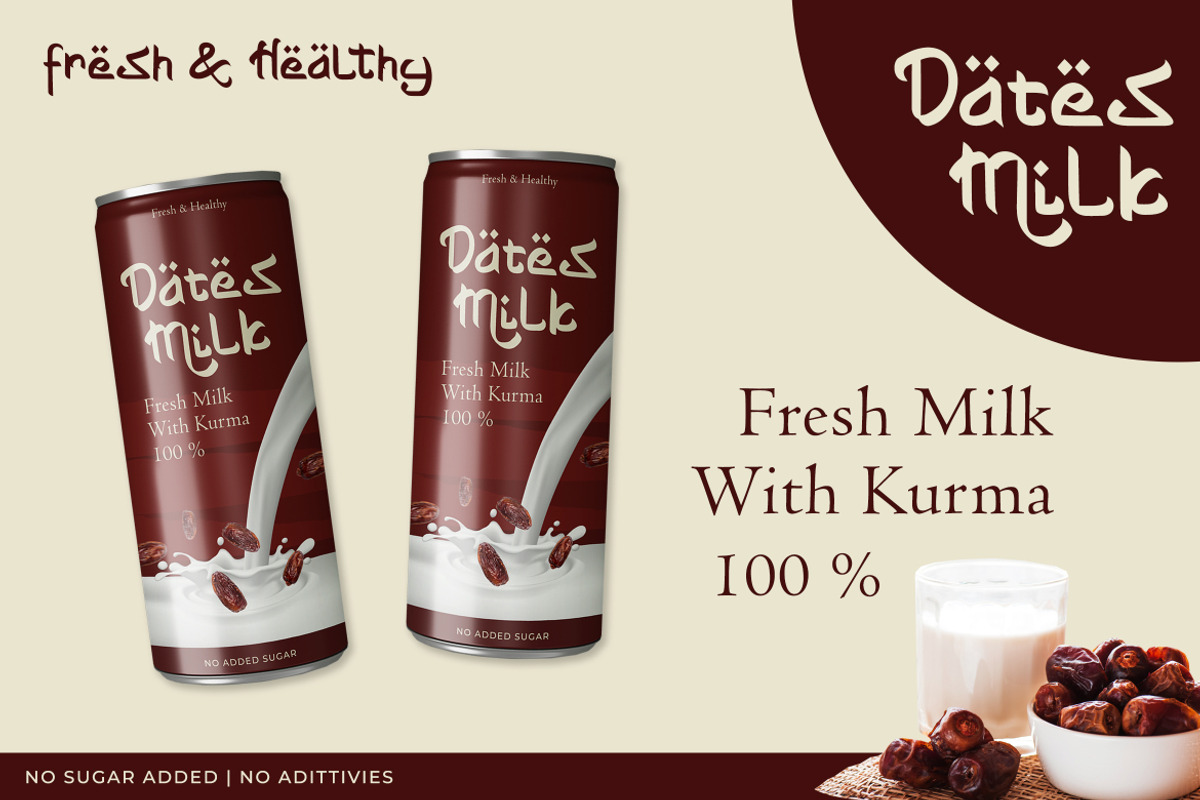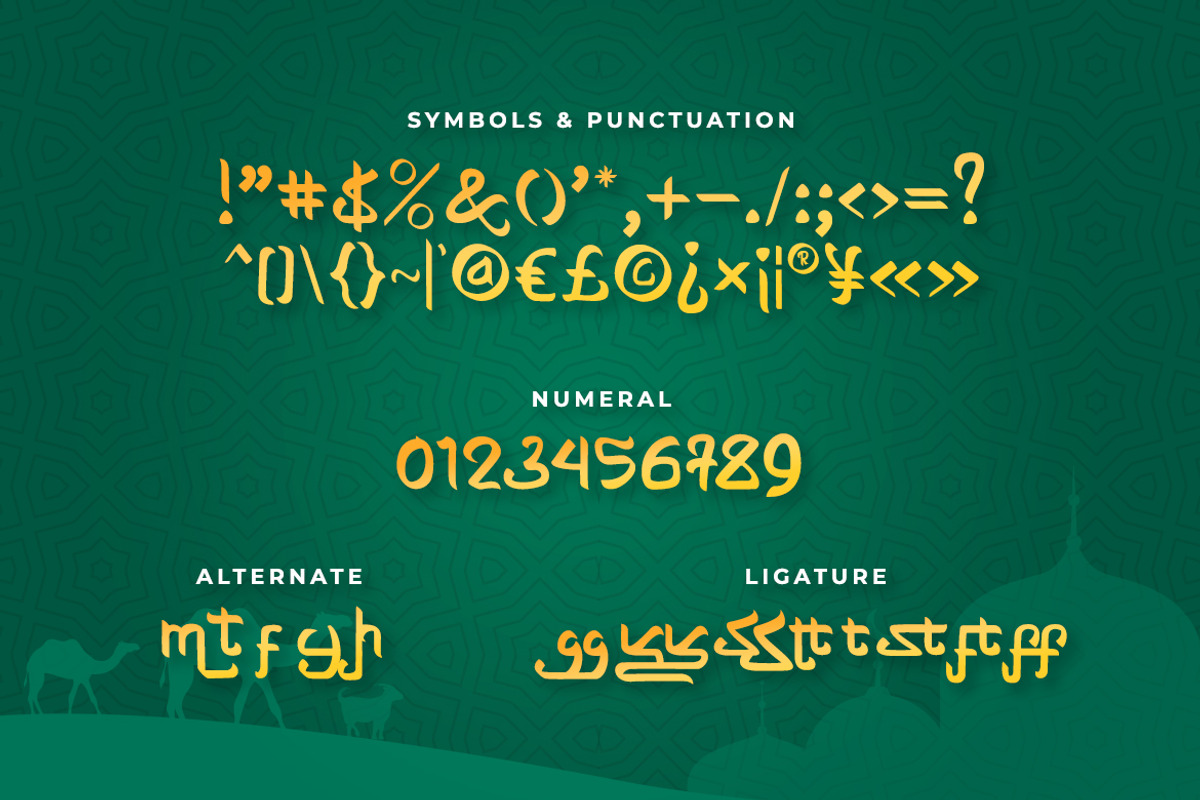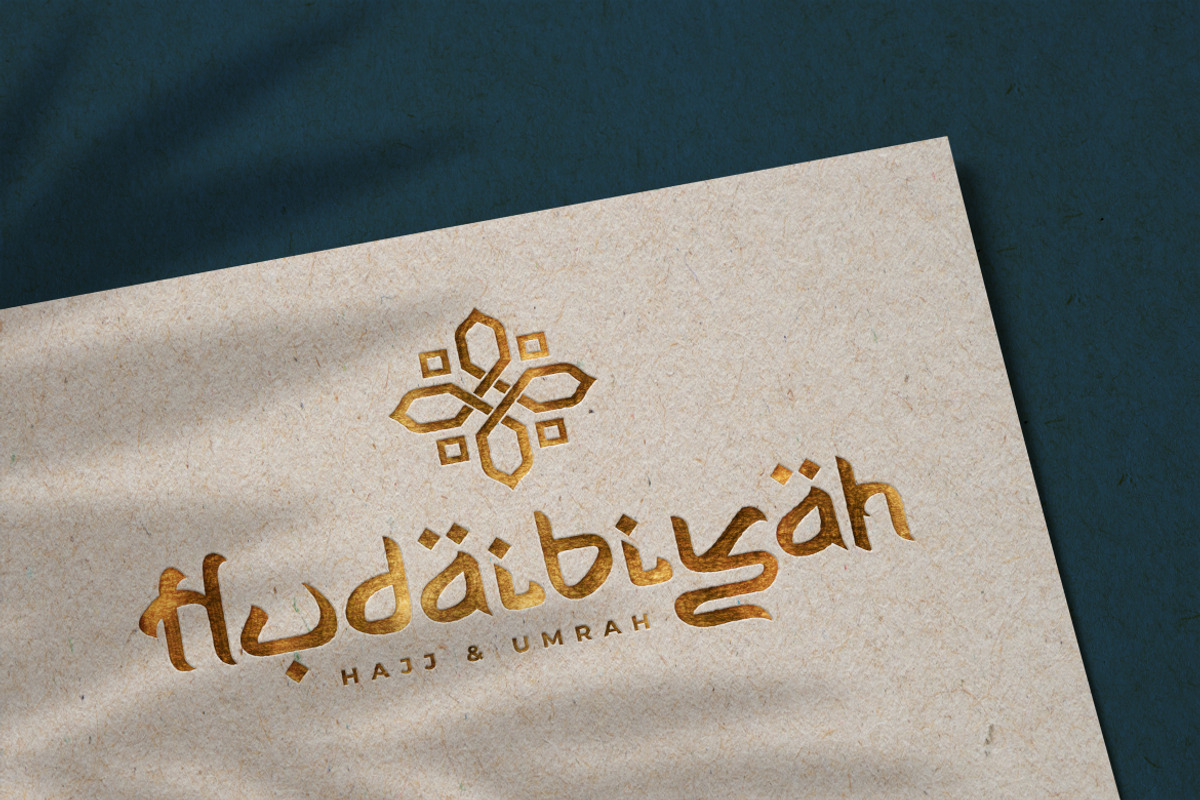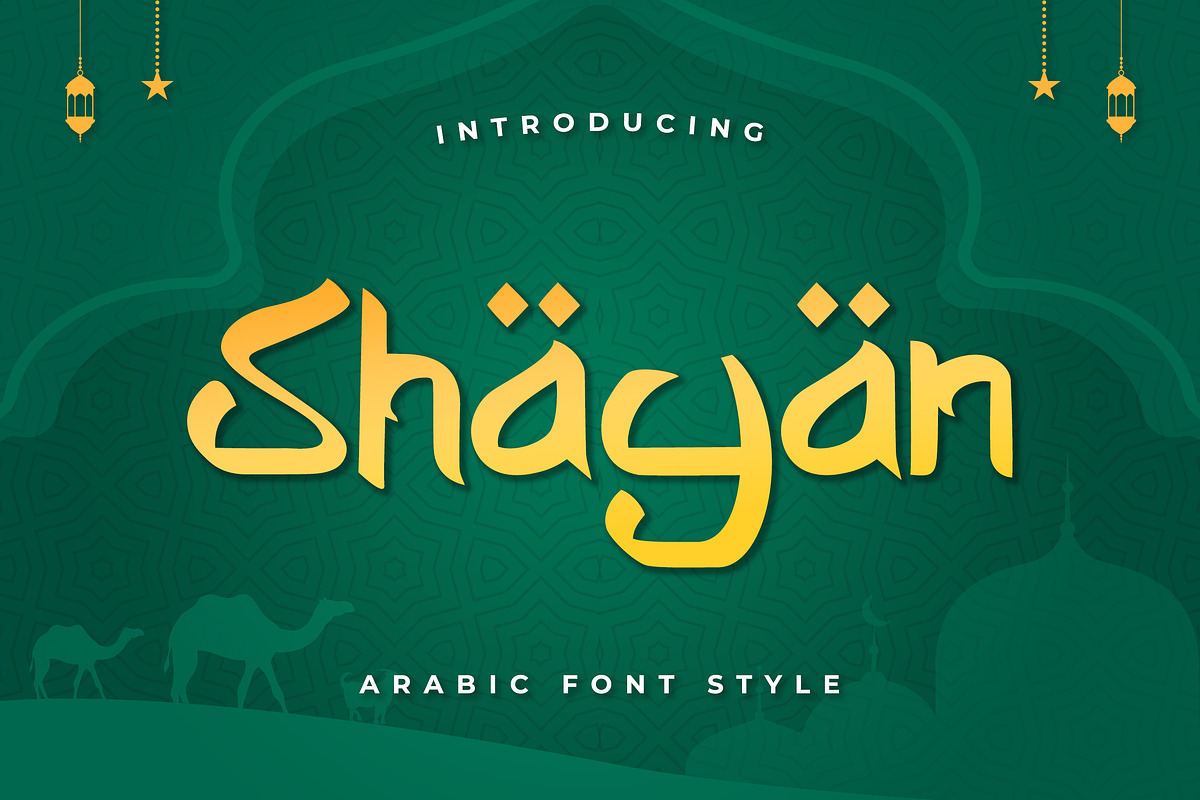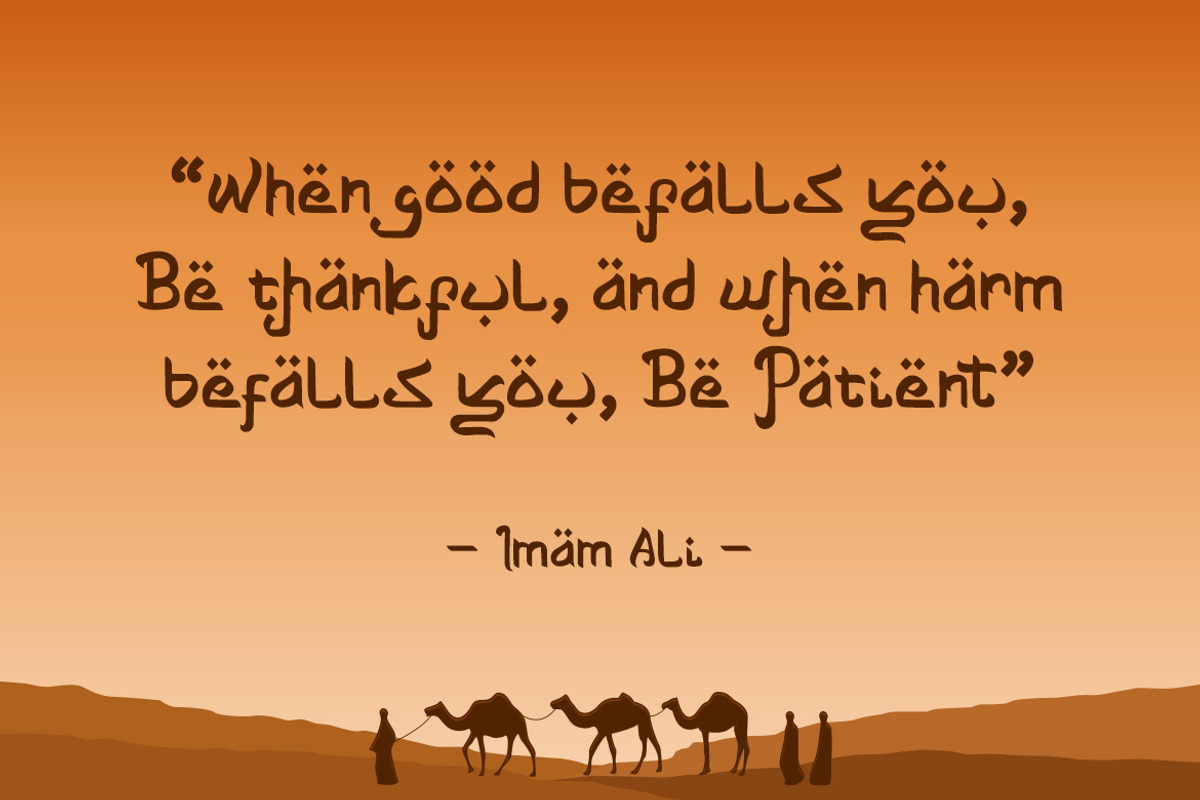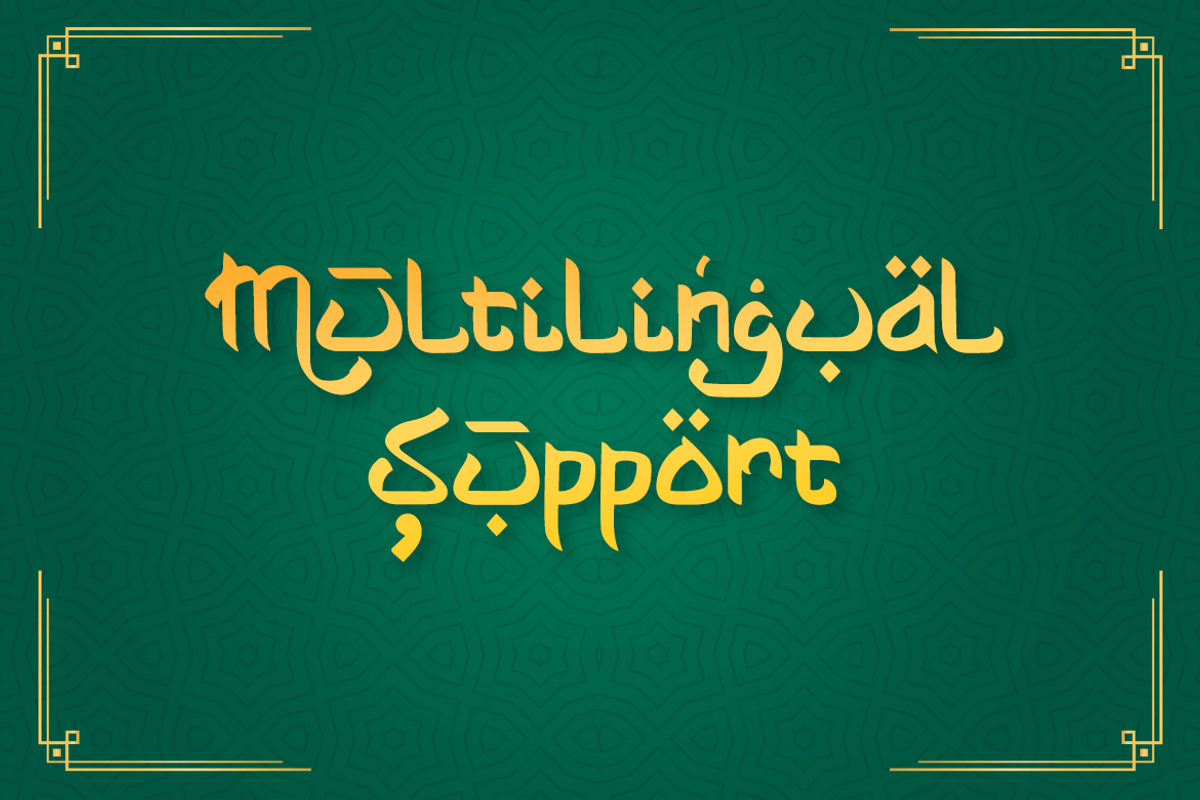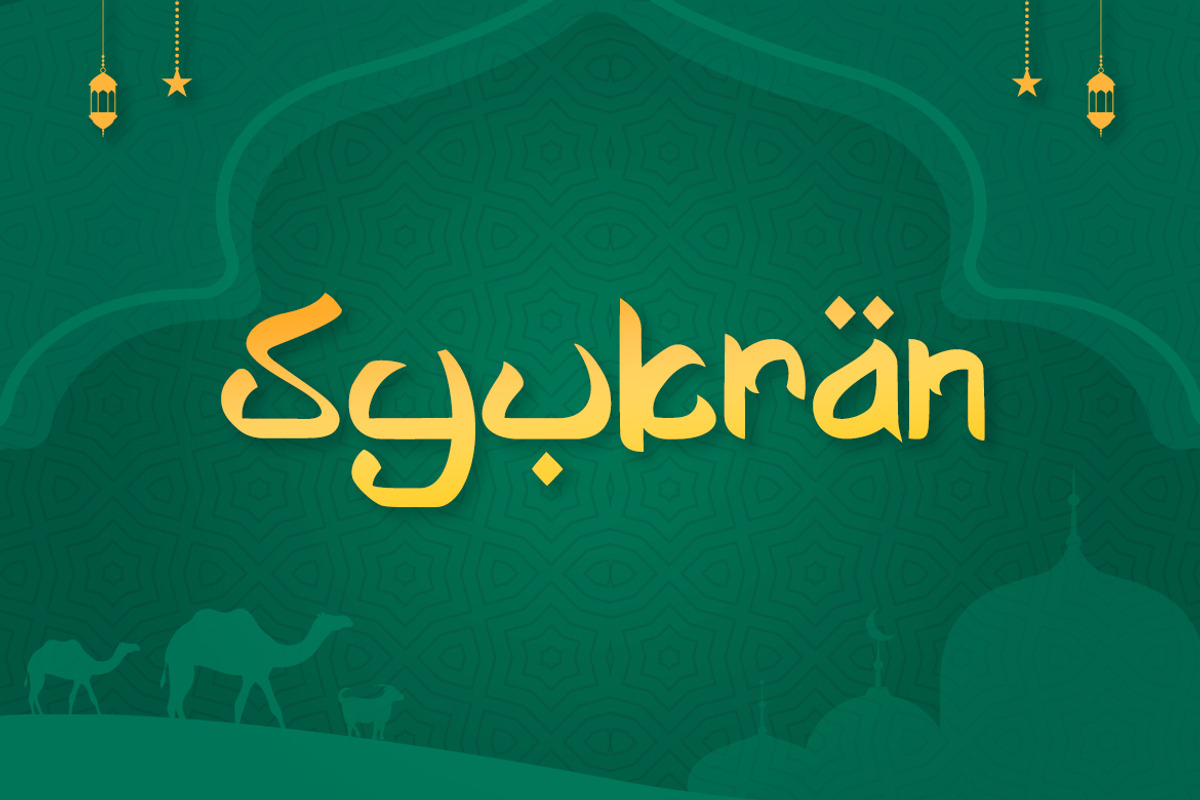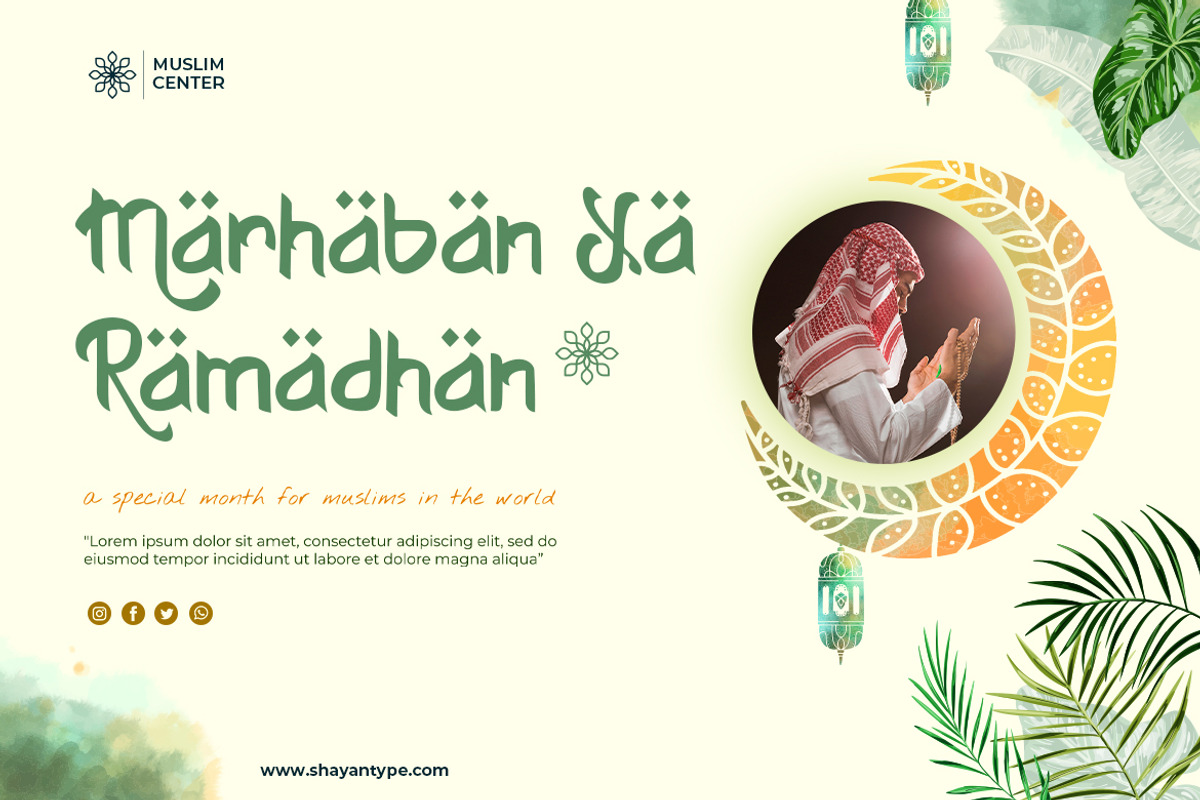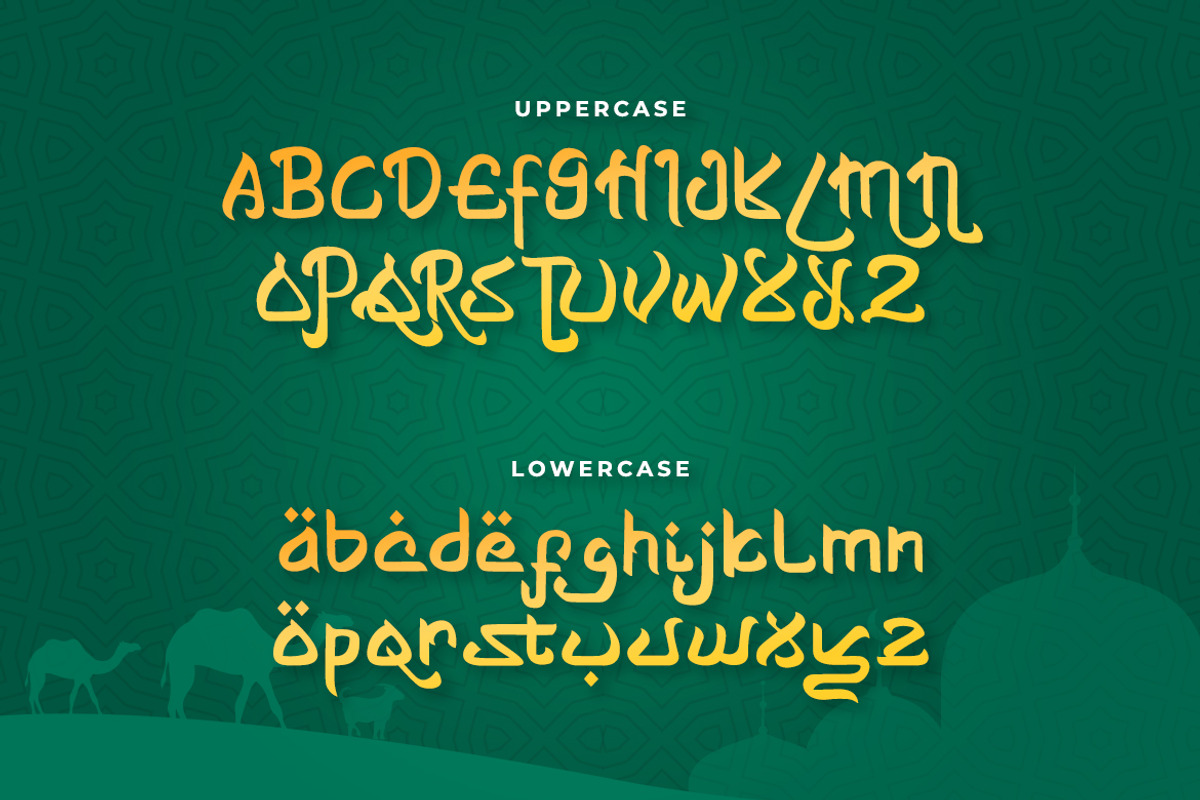
Shayan - Arabic Font Style
Shayan is an interesting display font inspired by the style and feel of the Middle East Arabic. This font is suitable for branding logos, Ramadan themes, and any other projects you can think of.